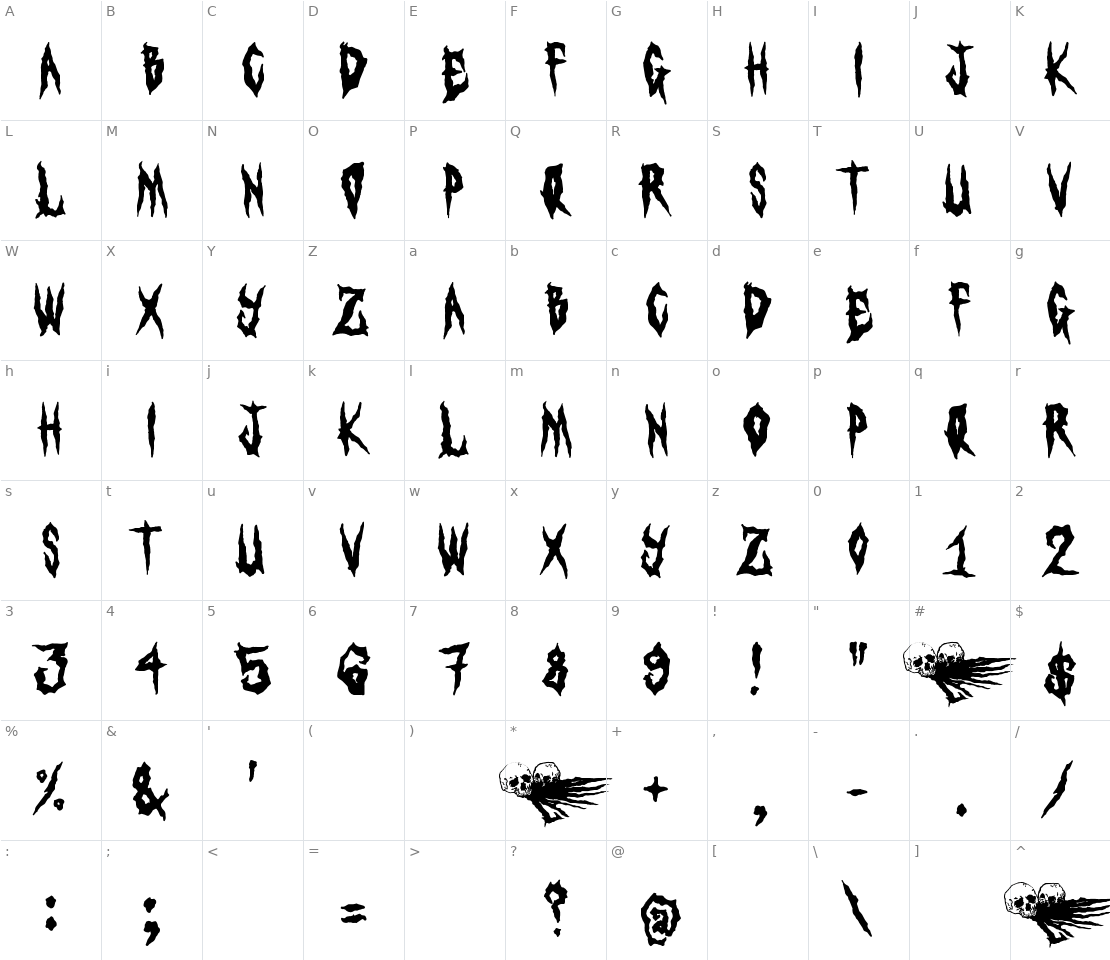
Lamebrains
Lamebrains is a jagged, dripping display face from Colm Clafferty that looks like it crawled out of a low-budget horror VHS cover. The letterforms are deliberately ugly, with uneven edges and goopy drip details that lean into Halloween, metal, and dark punk aesthetics. Strictly a headline font, best used at large sizes for posters, album art, and spooky seasonal work where restraint isn't the goal.